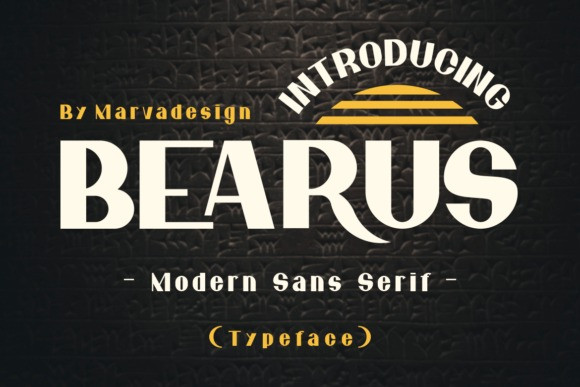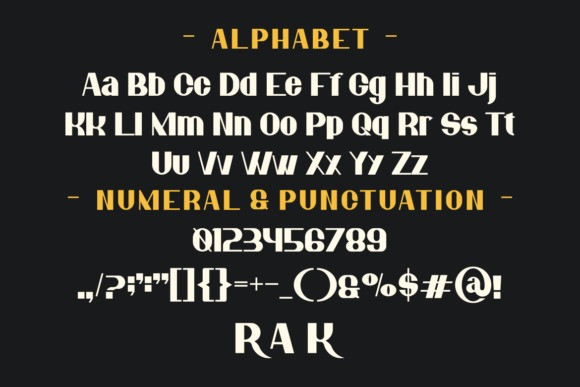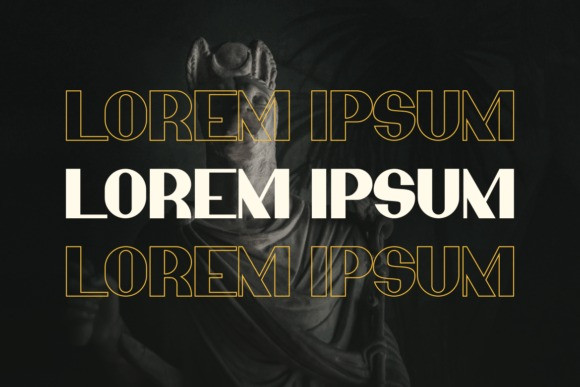
Bearus Font
Bearus is a modern and stylish sans serif font. This typeface will enhance your craft with little effort, making your product stand out from the competition.